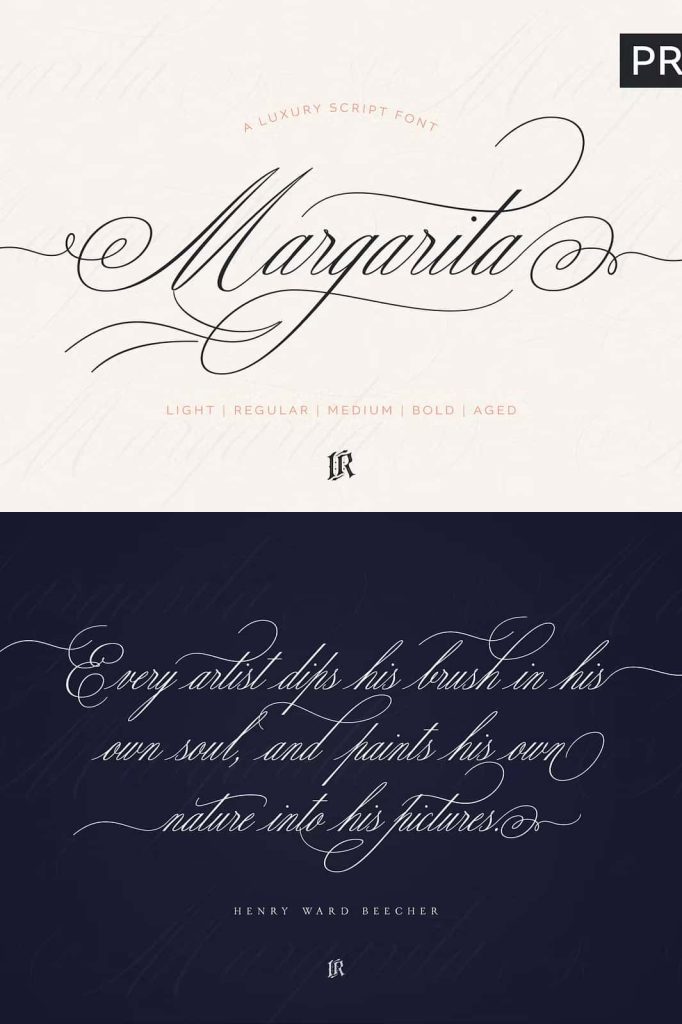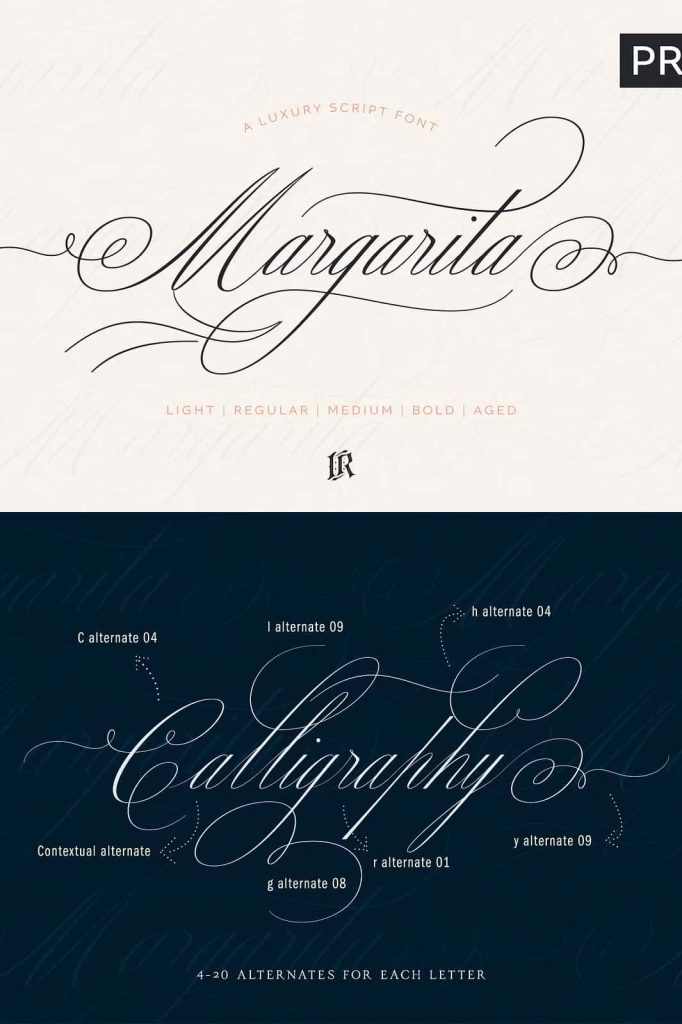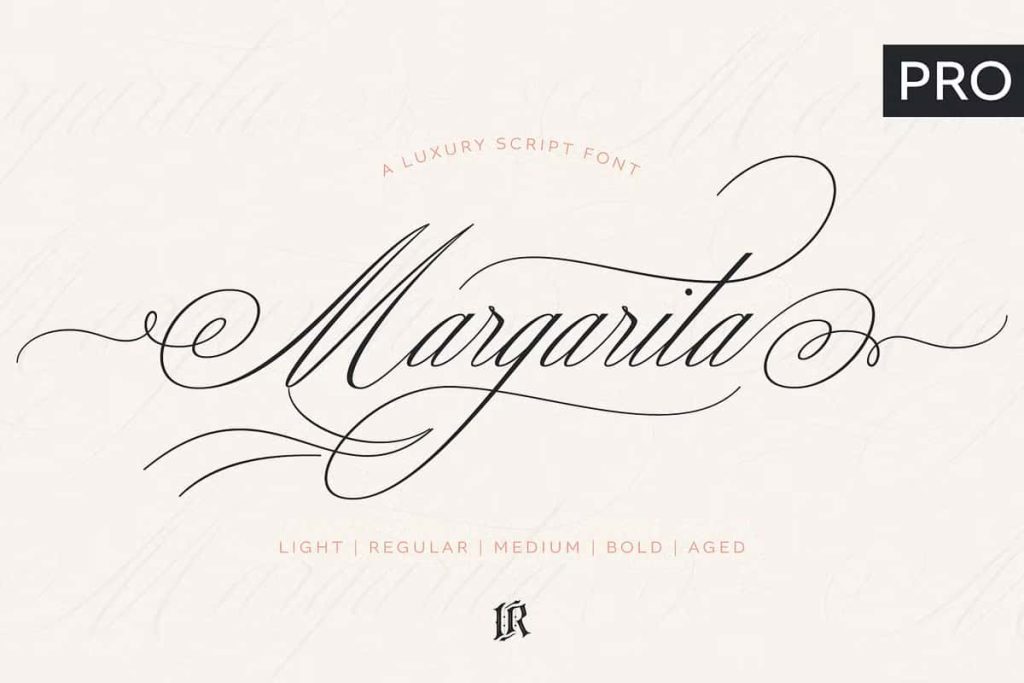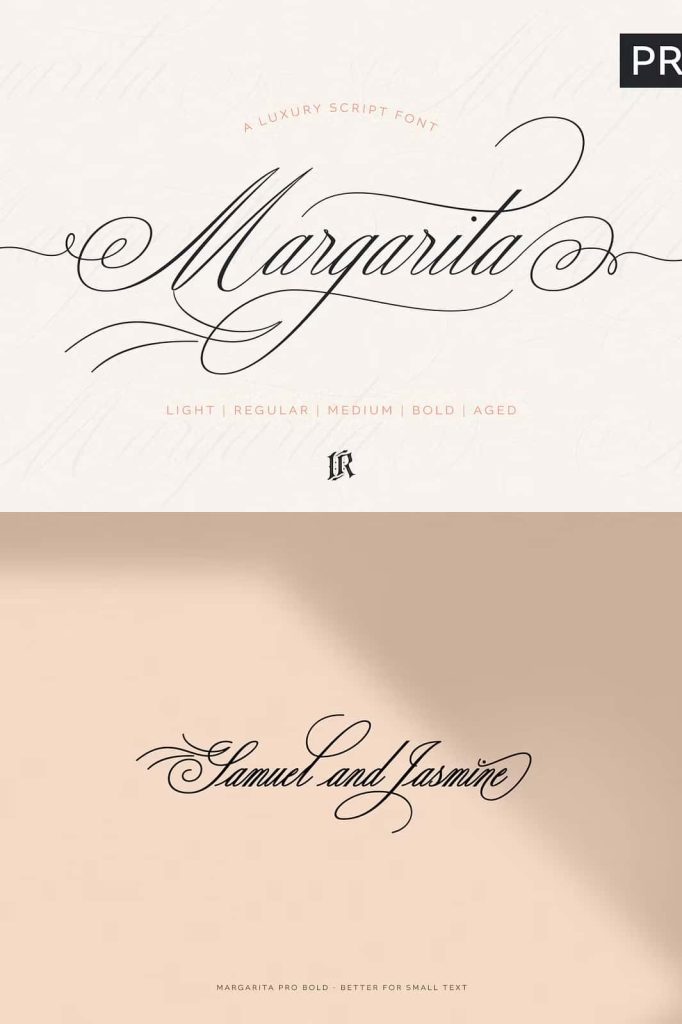
Margarita Pro Font – Elegant Formal Script Typeface for Sophisticated Designs
Margarita Pro Font is a beautifully crafted formal script font family designed to bring elegance, sophistication, and versatility to a wide range of creative projects. Featuring multilingual language support, an extensive collection of punctuation glyphs, and up to 20 stylistic alternates, this typeface offers exceptional flexibility for designers who value both beauty and functionality.
Inspired by classic calligraphy and refined handwriting styles, Margarita Pro Font delivers graceful letterforms that instantly enhance the visual appeal of any design. Its smooth curves, balanced proportions, and professional appearance make it an excellent choice for projects that require a touch of luxury and timeless charm. Whether you are designing wedding invitations, magazine layouts, restaurant menus, social media graphics, greeting cards, or premium branding materials, Margarita Pro Font helps create memorable and visually stunning results.
A Formal Script Font Designed for Elegance
Typography plays a critical role in communicating emotion and personality, and Margarita Pro Font excels at creating a sophisticated and welcoming impression. The elegant script design reflects the beauty of traditional handwriting while maintaining the clarity and readability required for modern applications.
Each character has been carefully designed to create natural flow and harmony throughout your text. The result is a refined script typeface that feels authentic, professional, and highly versatile. Its graceful appearance makes it suitable for both personal and commercial projects where style and presentation matter.
Multilingual Support for Global Communication
Margarita Pro Font includes multilingual support, allowing designers to create content for diverse audiences without sacrificing visual consistency. This feature makes the font a practical choice for international brands, event planners, publishers, and businesses that operate across multiple regions and languages.
The extensive language support helps ensure that your typography remains elegant and professional regardless of the market you are targeting. Whether you are designing invitations, promotional materials, or editorial content, Margarita Pro Font provides the flexibility needed for global communication.
Creative Freedom with Alternates and Glyphs
One of the standout features of Margarita Pro Font is its rich collection of typography enhancements. The font includes numerous punctuation glyphs and up to 20 alternates, giving designers greater control over the final appearance of their projects. These alternate characters allow you to customize text layouts, create unique lettering combinations, and add a personalized touch to your designs.
By mixing different alternates, you can create elegant wordmarks, stylish headlines, and distinctive branding elements that feel handcrafted and exclusive. This versatility makes Margarita Pro Font suitable for both simple and highly decorative typography compositions.
Popular Applications for Margarita Pro Font
- Wedding Invitations
- Bridal Branding
- Magazine Headlines
- Restaurant Menus
- Social Media Graphics
- Greeting Cards
- Birthday Invitations
- Luxury Packaging
- Event Stationery
- Logo Design and Branding
- Marketing Materials
- Editorial Projects
Perfect for Wedding and Event Stationery
Margarita Pro Font is particularly well suited for wedding and event-related designs. Its formal script style creates a romantic and elegant atmosphere that enhances invitations, save-the-date cards, RSVP cards, ceremony programs, and thank-you notes.
The font’s flowing letterforms add a sense of celebration and refinement, helping event materials feel more personal and memorable. Whether you are designing for a luxury wedding, anniversary celebration, or formal gathering, Margarita Pro Font contributes a timeless sense of sophistication.
Enhance Editorial and Magazine Designs
Magazine editors and graphic designers can use Margarita Pro Font to create eye-catching headlines, feature titles, and editorial accents. Its elegant appearance draws attention while maintaining a professional tone, making it ideal for fashion magazines, lifestyle publications, beauty editorials, and premium print materials.
When paired with modern serif or sans serif fonts, Margarita Pro Font creates striking typography combinations that elevate the overall visual experience. This versatility makes it a valuable asset for both print and digital publishing projects.
Create Memorable Restaurant Menus and Hospitality Branding
Restaurants, cafes, bakeries, and hospitality businesses can use Margarita Pro Font to establish a sophisticated and inviting brand identity. Its refined script style works beautifully on menus, signage, promotional materials, and packaging, helping businesses create a premium customer experience.
The font communicates quality, attention to detail, and professionalism, making it particularly effective for upscale dining establishments, boutique cafes, and luxury hospitality brands seeking a distinctive visual presence.
Ideal for Social Media and Modern Marketing
In today’s digital environment, attractive typography plays a key role in capturing audience attention. Margarita Pro Font helps content creators and marketers develop elegant social media graphics, promotional campaigns, and online advertisements that stand out in crowded feeds.
Its graceful script style adds personality and sophistication while remaining highly readable across digital platforms. This balance makes it an excellent choice for brands looking to strengthen their visual identity and improve audience engagement.
Why Choose Margarita Pro Font?
Margarita Pro Font combines timeless elegance with modern functionality, making it a versatile choice for designers, businesses, and creative professionals. Its formal script design, multilingual support, extensive punctuation glyphs, and collection of up to 20 alternates provide the flexibility needed to create truly distinctive typography.
Whether you are designing wedding invitations, magazine layouts, restaurant menus, greeting cards, branding materials, or social media content, Margarita Pro Font offers the sophistication and creative freedom required to produce exceptional results. With its refined character and professional quality, this font family helps transform ordinary text into elegant visual communication that leaves a lasting impression.